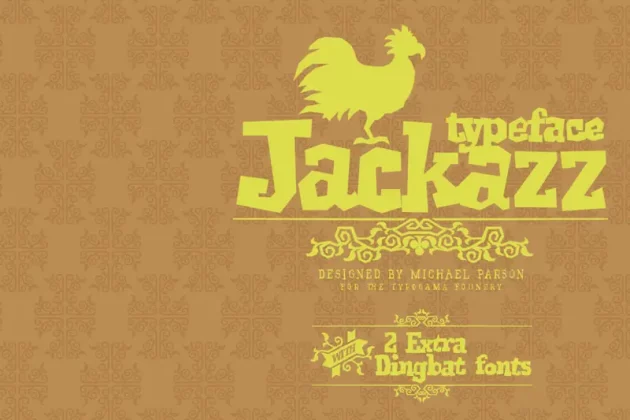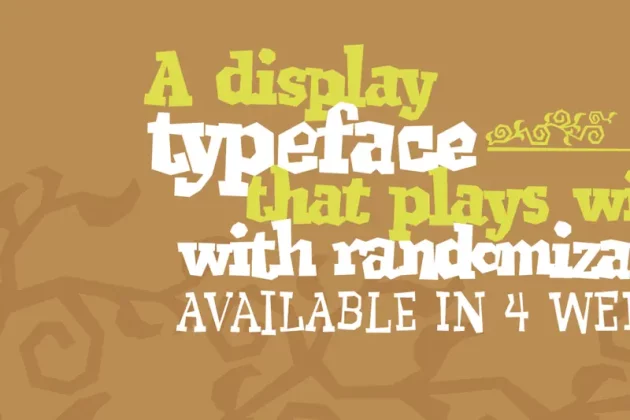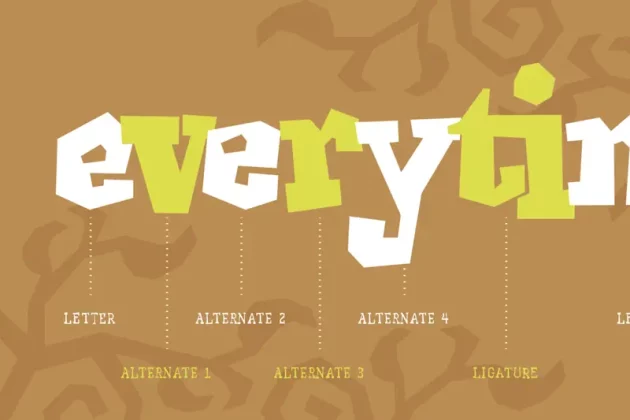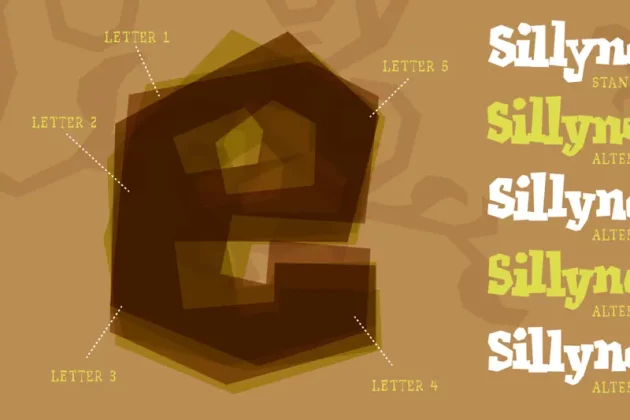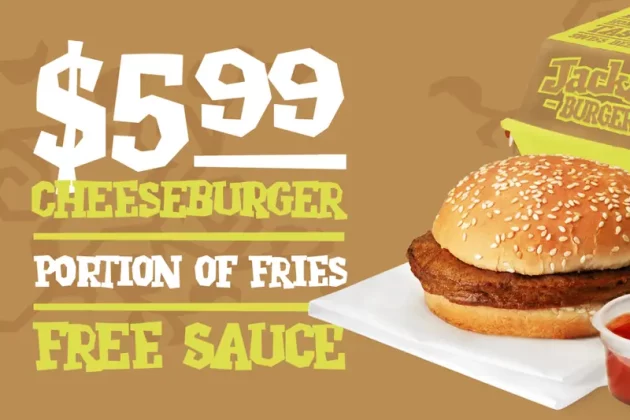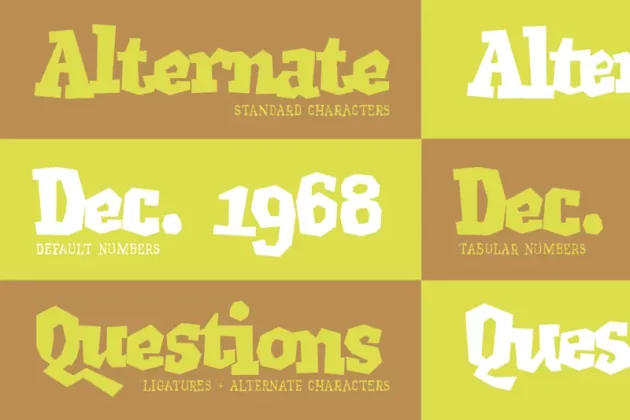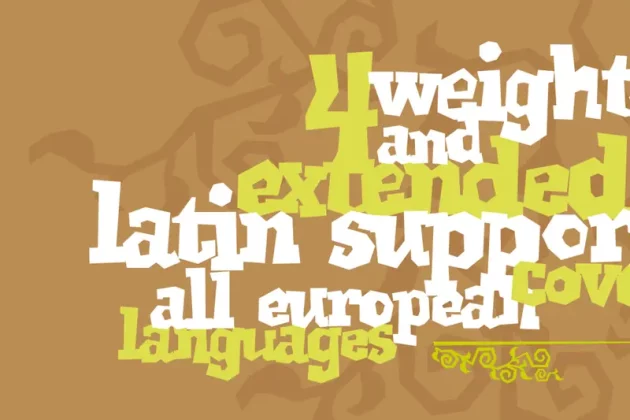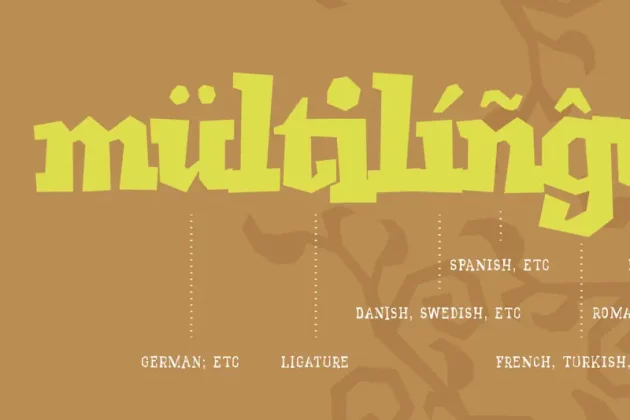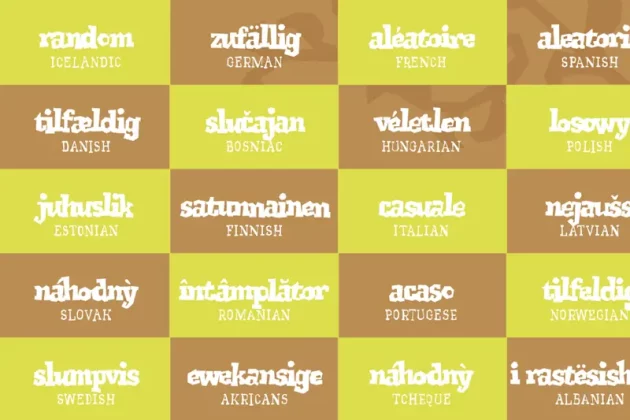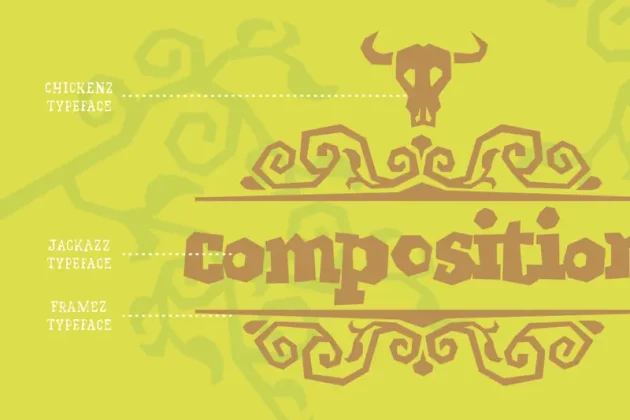
Jackazz typeface Font
Jackass is a four weight display design that plays with a randomization feature to offer a large range of layout solutions for each word. With added ligatures and a selection of number styles, this typeface is a funky solution that will constantly surprise! Included in the family is two complimentary dingbat fonts, Chickenz and Framez.